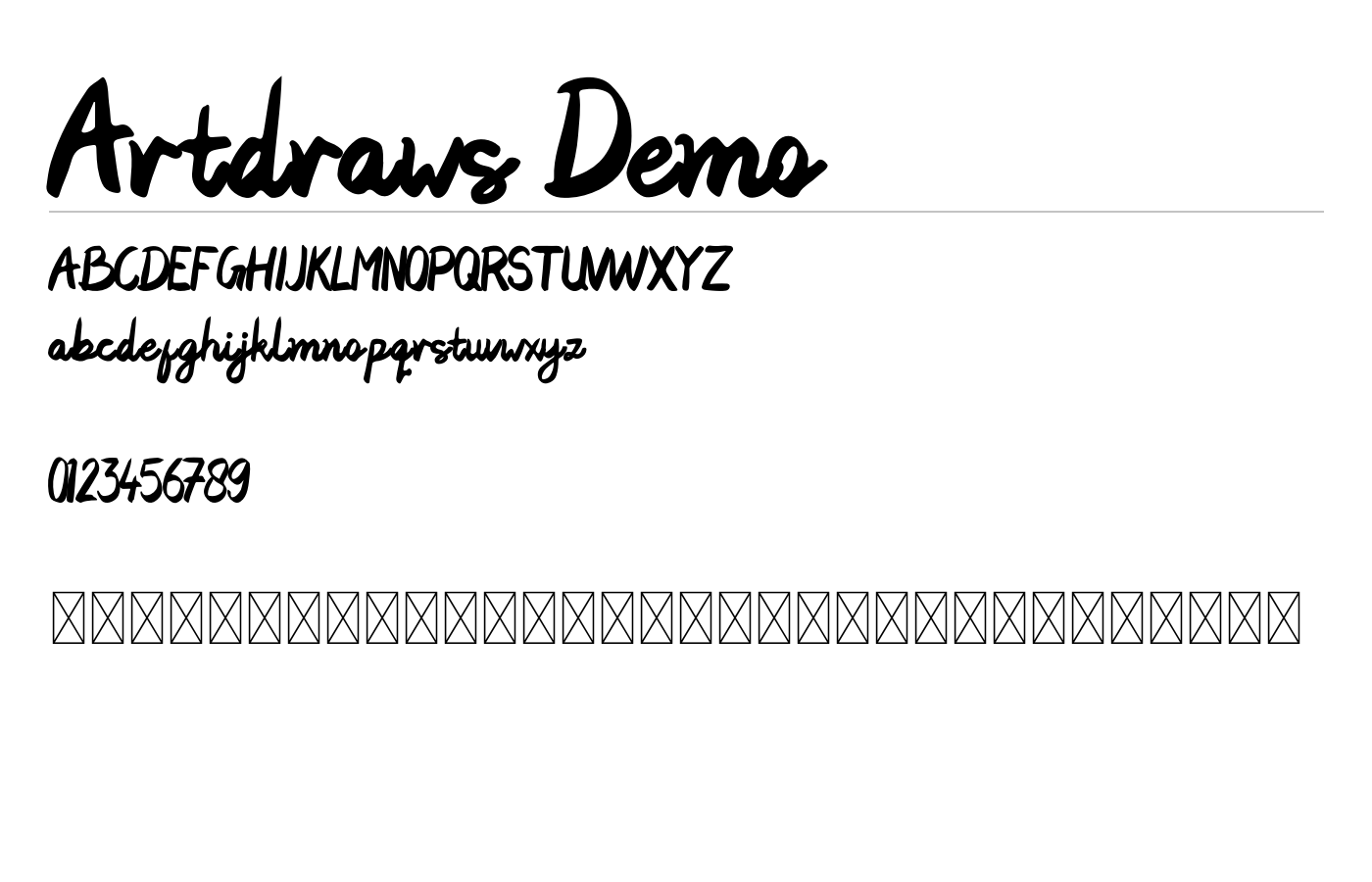
Artdraws is a casual, handwritten-style font with a playful and informal feel. Its varied stroke widths and slightly uneven letterforms give it a natural, brush-drawn look, making it ideal for creative projects, invitations, and branding that aim to convey friendliness and personality. This font works well in headlines and logos where a hand-crafted, artistic touch is desired.
Artdraws Font
About Artdraws Font
| Designer | Yusuf Sangdes |